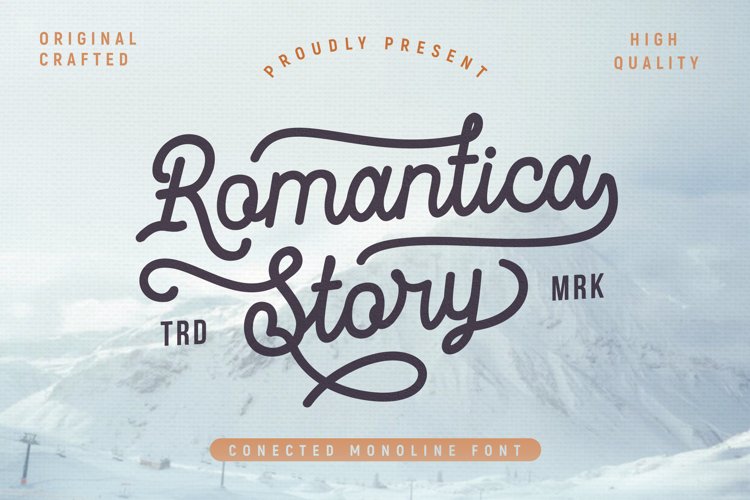
Romantica Story
Romantica Story Script Font is a monoline script font with much fiture. It comes in uppercase, lowercase, ligature, stylistic alternate, swash, and support multilingual. Romantica Story font is perfect for logos, branding, greeting cards, quotes, packaging, posters, advertising, name card, website, design title, blog header, art quote, typography, invitations, apparel, photography, wedding stationary, labels, and every other design which needs an unique and luxurious touch.